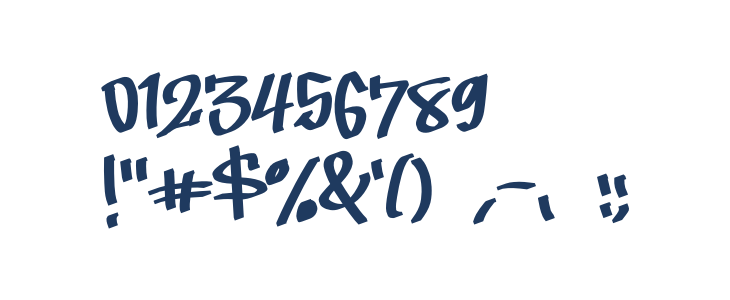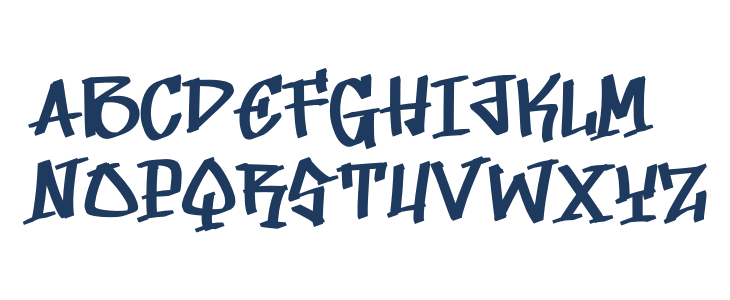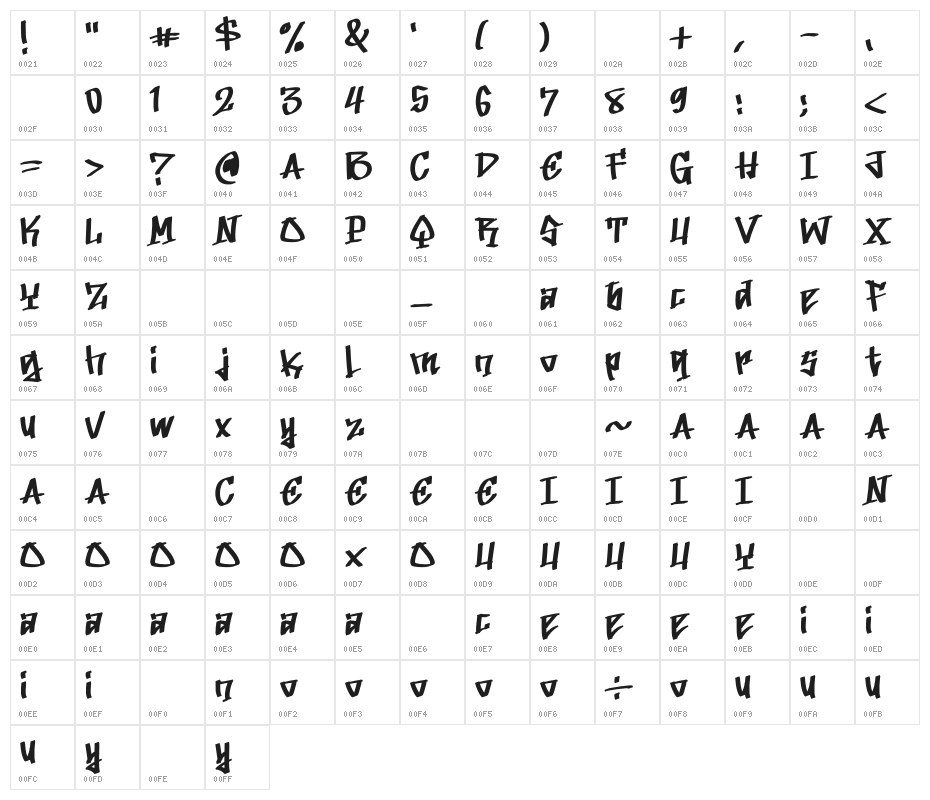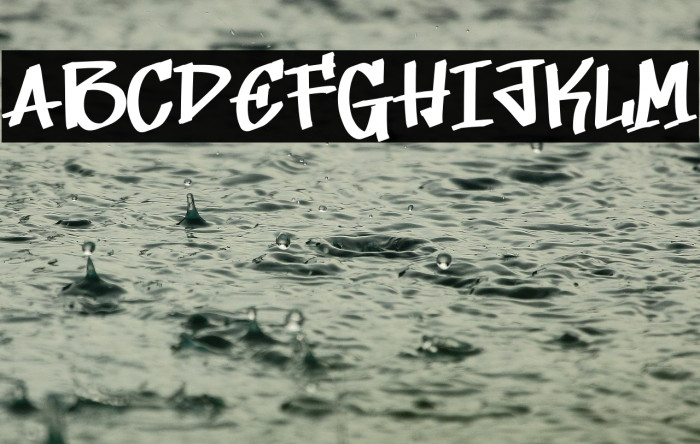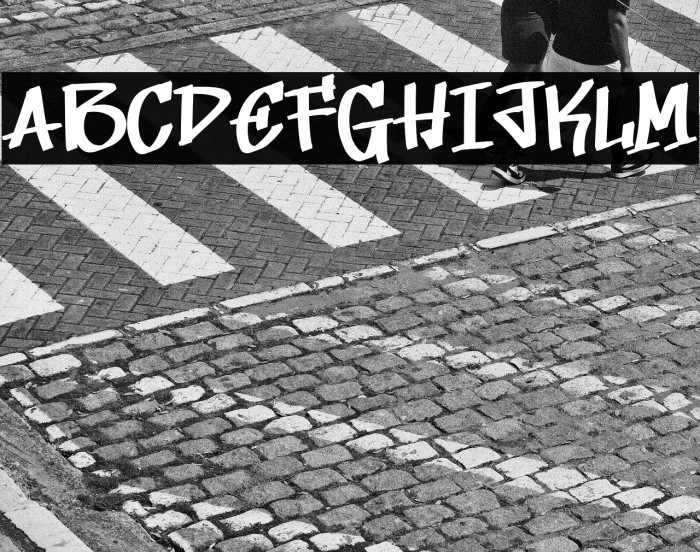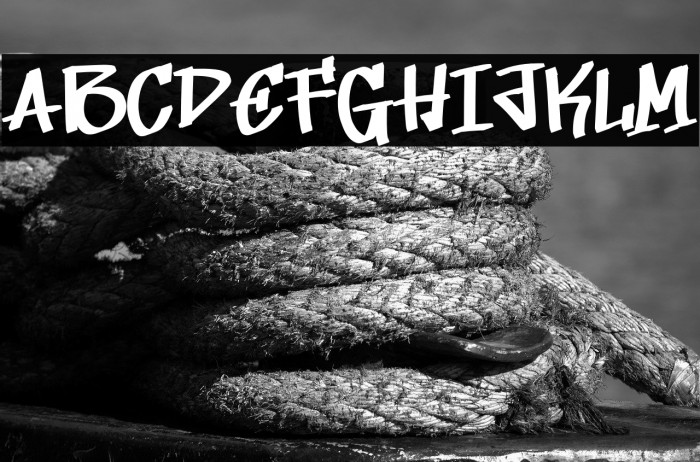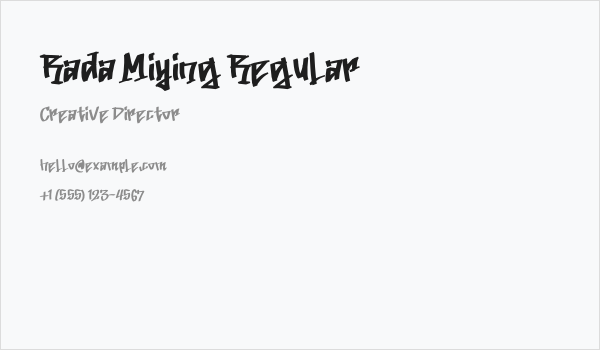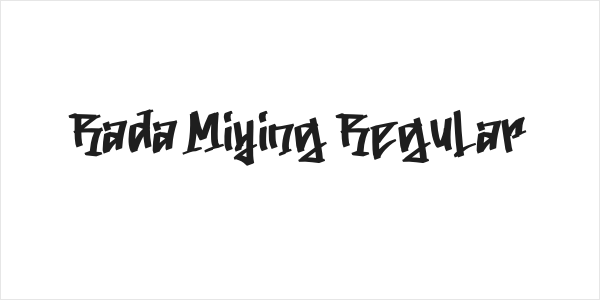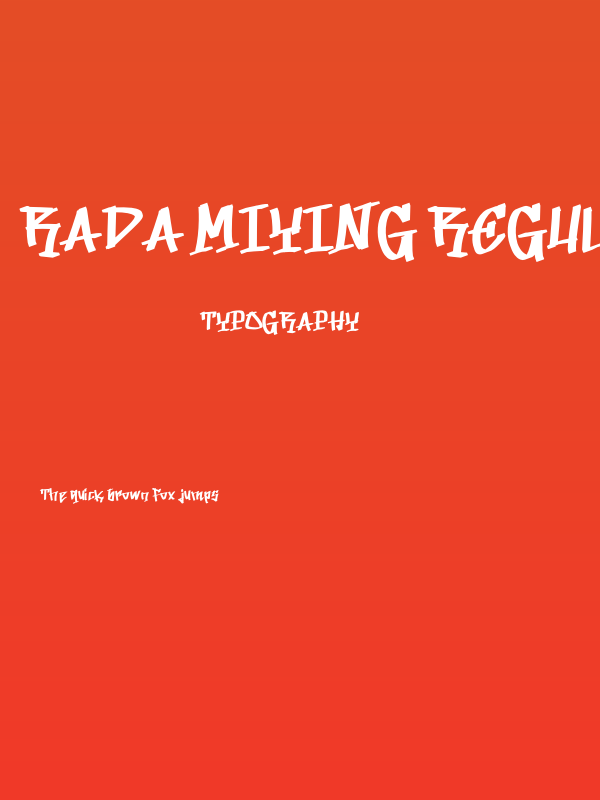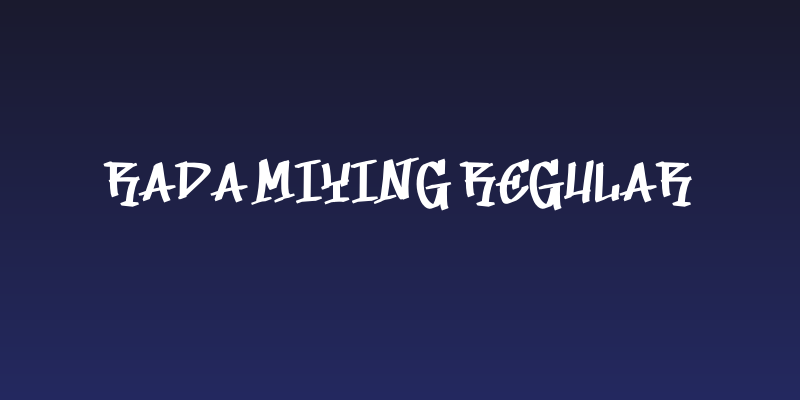
Rada Miying Regular Font
Rada Miying Regular Description
A bold, angular handwritten style with sharp edges and dynamic strokes, giving a graffiti-inspired, energetic appearance. The characters are slightly slanted and irregular, with expressive forms and varying stroke thickness.
| Overall Style | Decorative, Urban, Energetic |
| Use Case | Logos, Headlines, Posters, Branding |
| Proposed Projects | Street art posters, music album covers, skateboarding brands, youth-oriented advertising, event flyers. |